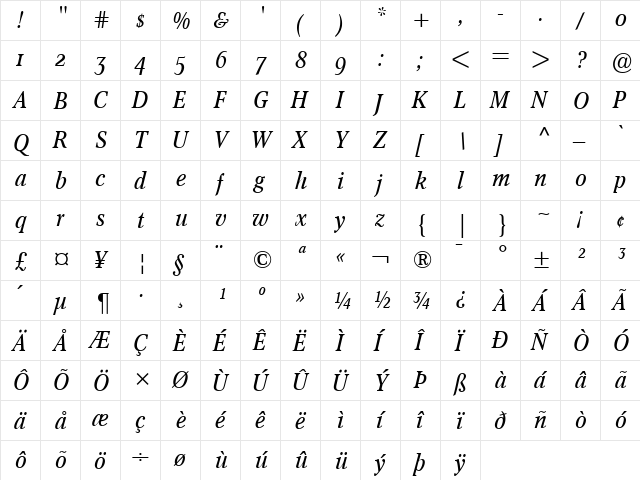
Concorde Nova Italic
Design Context for Concorde Nova Typeface
Concorde Nova takes a measured approach to typography — its balanced proportions and neutral character make it a reliable workhorse for both digital and print work. The dynamic lean of this cut emphasises speed and emphasis in any layout.
Pro Tip: Try Concorde Nova for annotation and caption copy alongside an upright companion — the contrast in angle creates a dynamic but ordered typographic system.